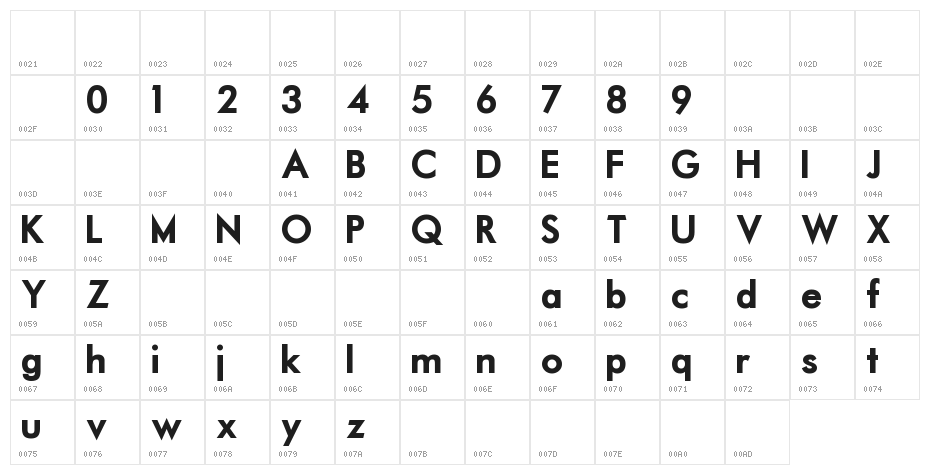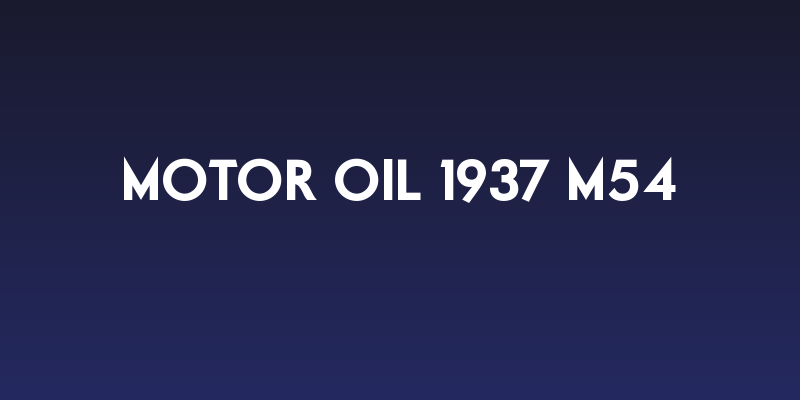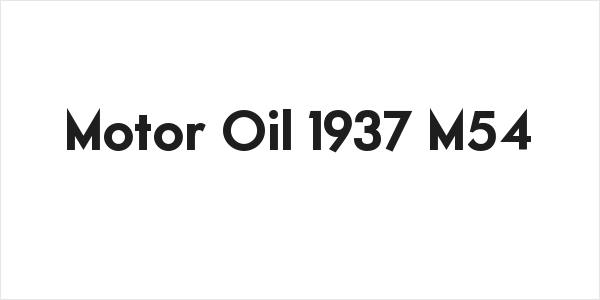
Motor Oil 1937 M54 Font
Motor Oil 1937 M54 Description
This font features bold, geometric letterforms with a strong presence and clean lines. The characters are evenly spaced, providing a balanced and harmonious appearance. The uppercase letters are particularly striking, with a uniform height and width that convey a sense of stability and strength. The lowercase letters maintain the geometric style, offering a consistent look across both cases. The numerals are clear and legible, making them suitable for various applications. Overall, this font exudes a modern and professional vibe, ideal for making a bold statement.
| Proposed Projects | Ideal for branding, advertising, headlines, and signage where a strong, modern impact is desired. |